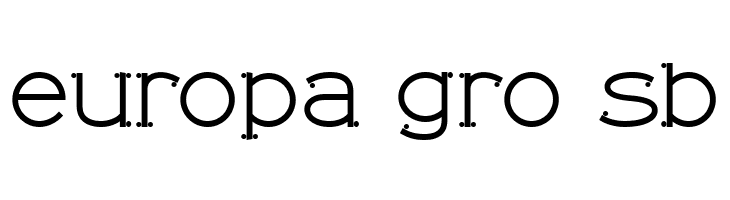
Ornamental and decorative dingbat set with borders and flourishes.
A bold, geometric font with spiked accents and a modern, digital aesthetic.
A playful, heart-themed decorative dingbat set.
Festive, decorative banners and ribbons with varied edges and embellishments.
A playful, decorative font with circular accents on each stroke.
An elegant, flowing script with intricate curves and a mystical appearance.
A whimsical, decorative serif font with playful curls and loops.
A bold, italic font with decorative diamond accents and dynamic style.
A playful, heart-themed font with bold, rounded characters and a hand-drawn style.
An ornate and decorative font with intricate flourishes and high contrast.